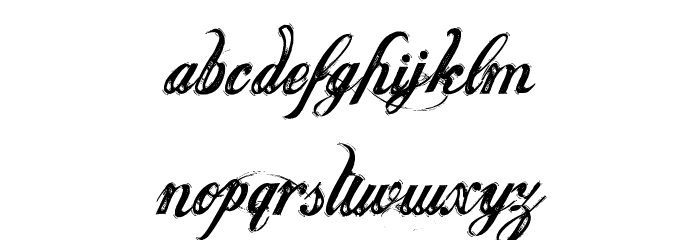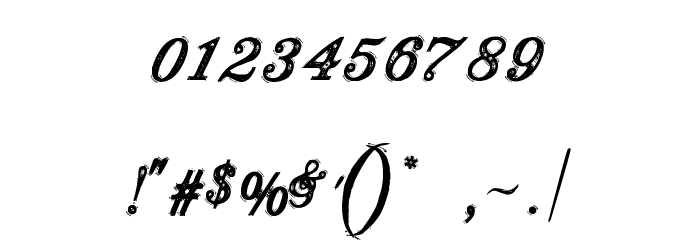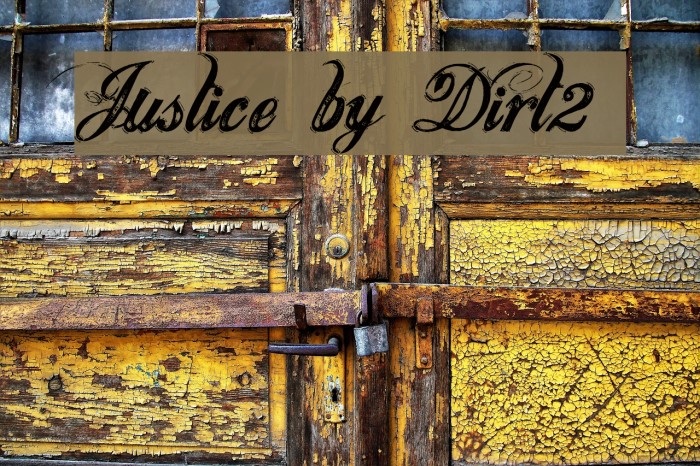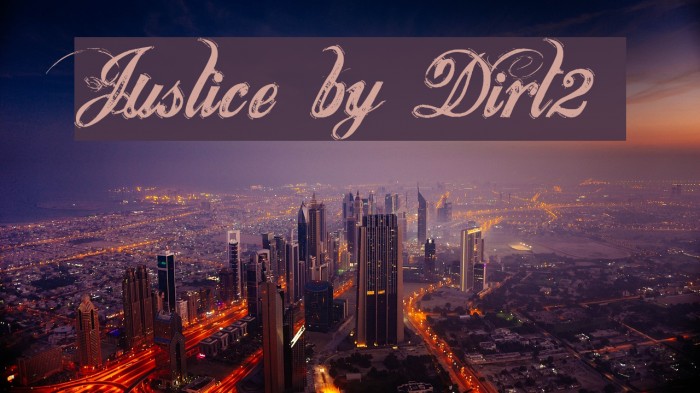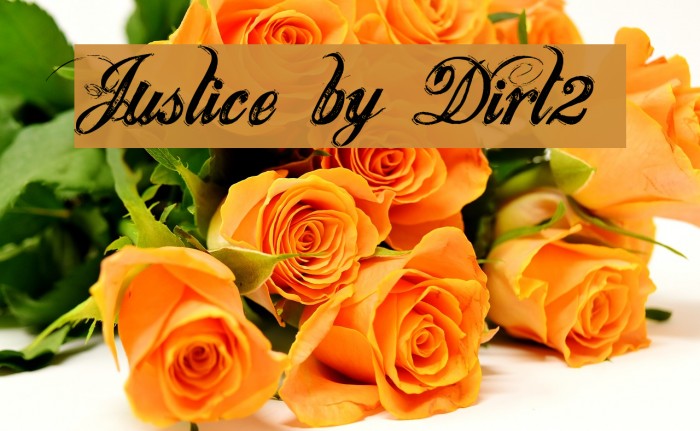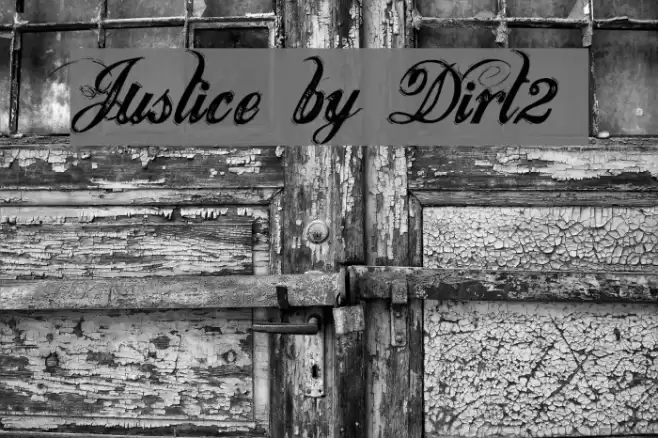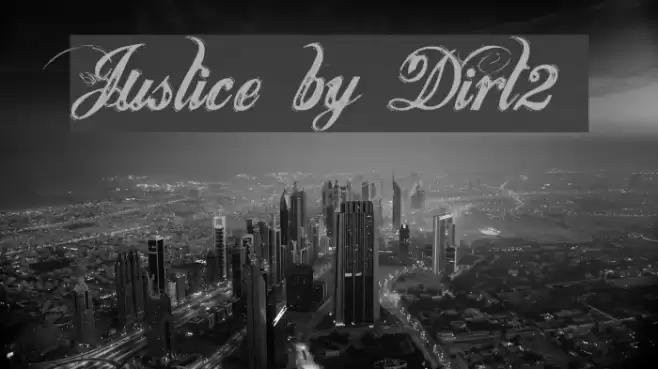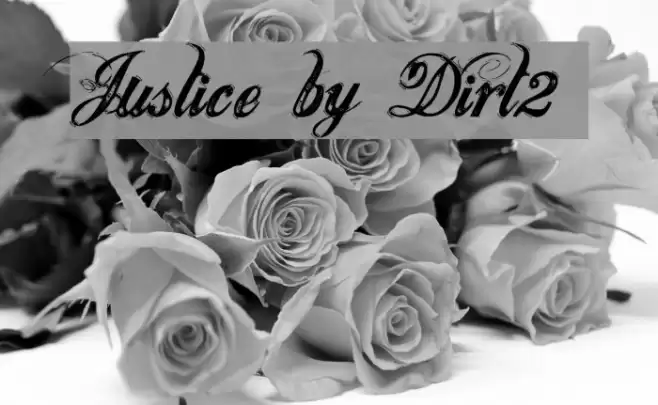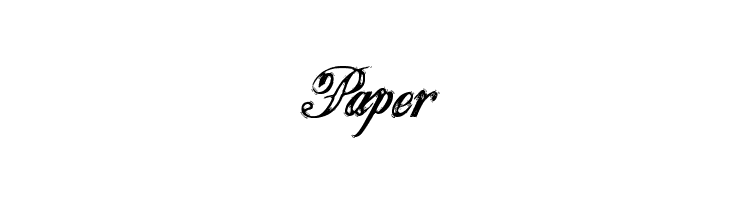
Justice by Dirt2 Font
This font exudes a dramatic and ornate style, characterized by its intricate swirls and flourishes that embellish each letter. The uppercase letters are particularly elaborate, with extended strokes and decorative elements that give a sense of grandeur and elegance. The lowercase letters maintain a consistent style, though they are slightly more subdued in their embellishments. The numerals and special characters follow the same ornate theme, ensuring a cohesive look across all glyphs. This font's high contrast in stroke thickness adds to its bold and striking appearance, making it suitable for attention-grabbing designs.
An ornate and dramatic font with intricate swirls and high contrast.
- Proposed Projects: Ideal for wedding invitations, luxury branding, and decorative headlines.